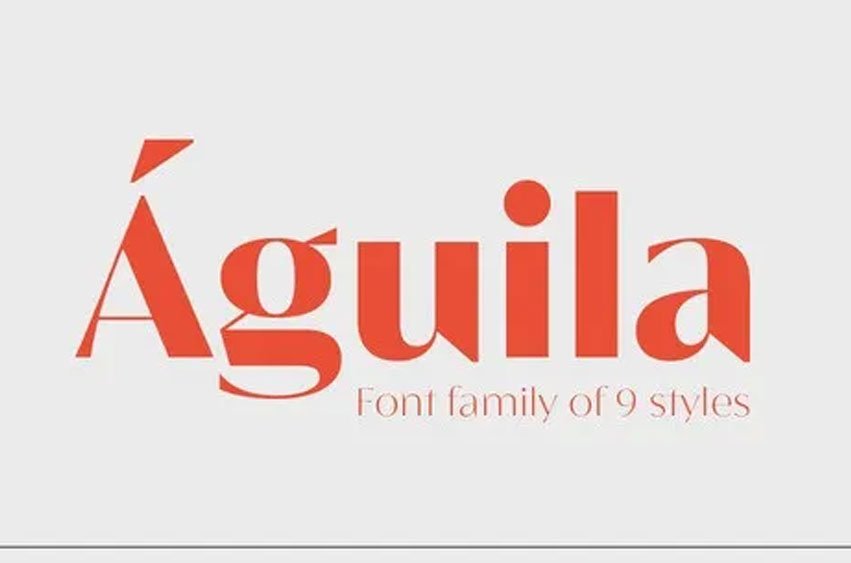
Águila Font was designed and distributed by Latinotype in both its classic and contemporary variants, creating and disseminating this font that features straight lines with curvatures and triangular shapes like Didone typefaces as well as semi serifs to give its appearance an unique appearance.